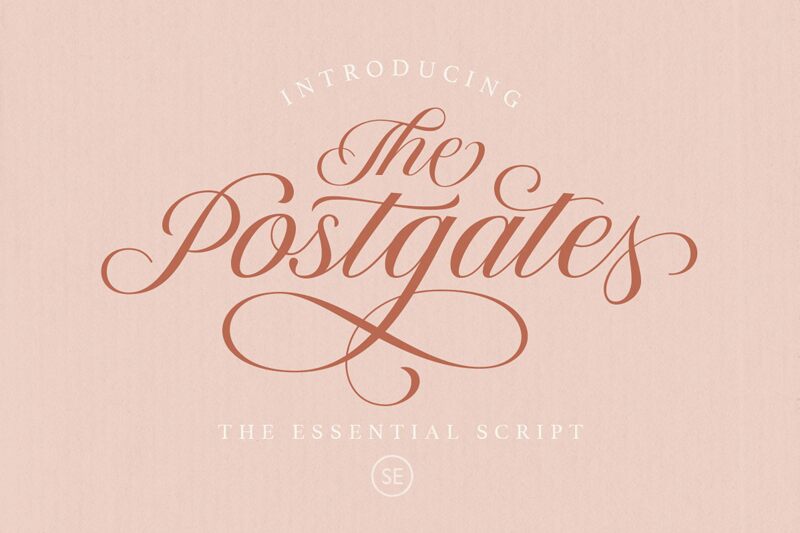
The Postgates, crafted by Sarid Ezra, embodies the elegance of classical calligraphy while injecting a contemporary flair. Its fluid, sweeping lines and graceful curves create an enchanting visual experience that captures attention effortlessly. The distinct balance between bold flourishes and soft strokes imparts a sense of sophistication, making it ideal for romantic invitations or formal branding.
This font's striking characteristics lend themselves perfectly to various design contexts-from wedding stationery and elegant event promotions to upscale restaurant menus and luxurious product packaging. The Postgates' unique aesthetic not only enhances textual communication but also evokes emotion, drawing viewers into its beautifully crafted world. Embrace its charm to elevate your next creative project with a touch of artistry and refinement.